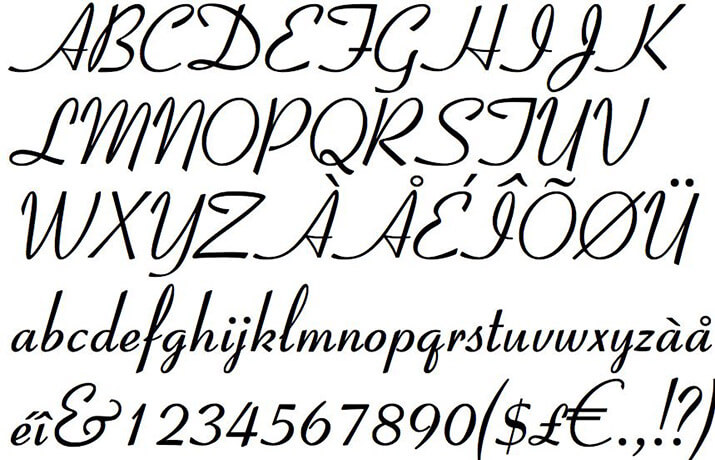
Introducing I Love Lucy Font! It is an American television sitcom that originally aired on CBS from October 15, 1951, to May 6, 1957, with a total of 180 half-hour episodes, spanning six seasons.
The show starred Lucille Ball with her husband Desi Arnaz and their team including Vivian Vance, William Frawley, and Richard Keith.
In 1968 it became one of the most-watched shows in United States history. Now, the show has won five Emmy Awards and received various nominations and awards.
And, the majority of designers want to work with the font used for the I Love Lucy logo. So, I want to show you the Coronet font used in the title itself.
Font Designer:R. Hunter Middleton
It is perfectly suited for logo making, invitation cards, wedding cards, book layouts, poster crafting, product design, photography on watermarks, special events, etc. Additionally, it would be a good way to use it for fashion magazines.
This script font has been designed since 1937 by R. Hunter Middleton, a painter and type designer. It has 196 characters with support for international languages.
These stylish fonts have enough characters for creating almost all kinds of stylish designs from small to large.